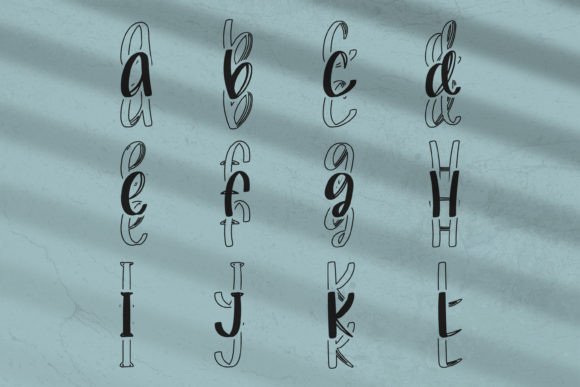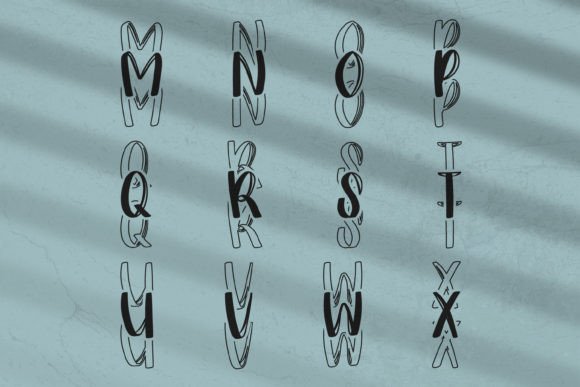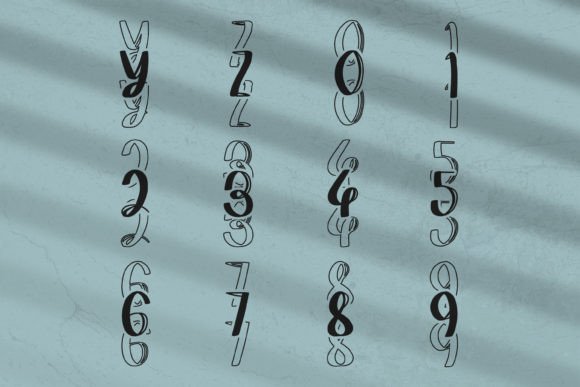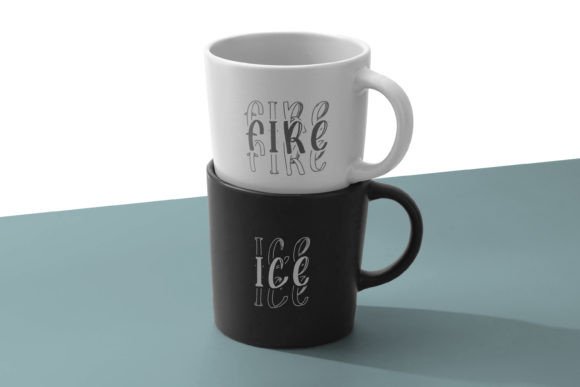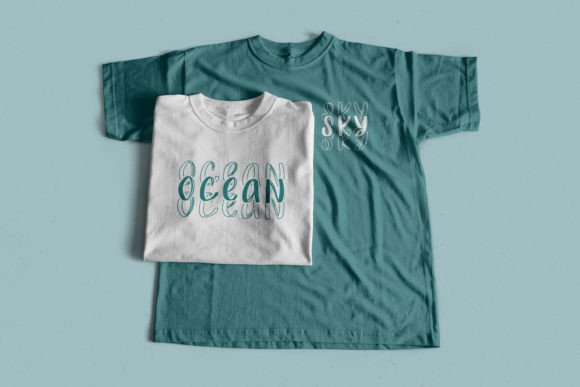
Discover the Magic of Blend Font: Elevate Your Designs with a Lovely Touch
Are you a designer, crafter, or DIY enthusiast looking for a font that can add a touch of magic to your creations? Look no further than the Blend Font! This incredibly cool font is perfect for anyone who wants to add a lovely touch to their custom designs, DIY crafts, or any other project that requires a bit of personality.
What Makes Blend Font So Special?
Blend Font is a unique and versatile font that can be used in a variety of creative projects. Its distinctive style and flair make it stand out from more traditional fonts, adding a touch of whimsy and charm to any design. Whether you’re creating custom invitations, crafting handmade cards, or designing social media graphics, Blend Font is sure to make your project shine.
Key Features of Blend Font
- Unique Style: Blend Font boasts a one-of-a-kind design that’s sure to capture attention.
- Versatility: Use it for a wide range of projects, from digital designs to handmade crafts.
- Ease of Use: Blend Font is easy to read and works well in both large and small sizes.
- Customization: Experiment with different colors, textures, and effects to make your text truly unique.
Blend Font is a dream come true for designers and crafters who want to add a personal touch to their work. Its playful and charming style makes it perfect for:
- Custom Designs: Use Blend Font to create stunning custom designs for clients or personal projects.
- DIY Crafts: Add a lovely touch to your handmade crafts, such as cards, gift tags, and scrapbook pages.
- Social Media Graphics: Elevate your social media graphics with a font that’s sure to grab attention.
Tips for Using Blend Font
To get the most out of Blend Font, here are a few tips to keep in mind:
- Experiment with Colors: Try pairing Blend Font with different colors and textures to create a unique look.
- Play with Size: Use Blend Font in large and small sizes to add visual interest to your design.
- Mix and Match: Combine Blend Font with other fonts to create a truly one-of-a-kind design.
Whether you’re a seasoned designer or a crafty DIY enthusiast, Blend Font is sure to become a favorite in your collection. Its unique charm and versatility make it perfect for adding a personal touch to any project. So go ahead, give Blend Font a try, and see the magic for yourself!